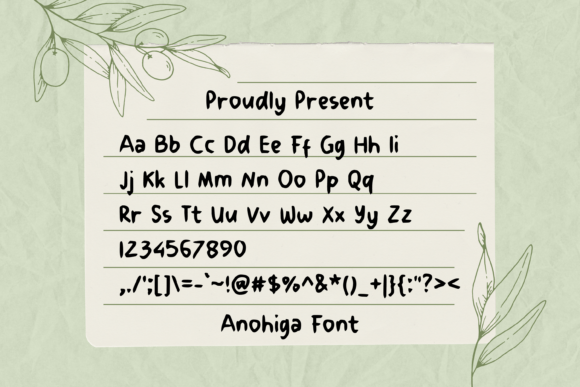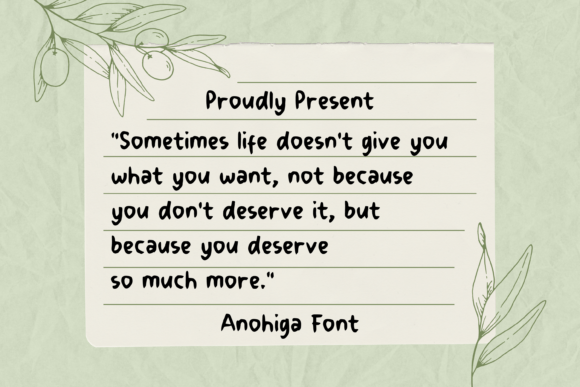
The Perfect Blend of Personality and Versatility
Have you ever been stuck in a creative rut, struggling to find the perfect font to bring your design to life? I know I have! There’s nothing quite like the frustration of staring at a blank page, wondering how to make your message stand out. But what if I told you there’s a font that’s sure to add a touch of personality to your designs, without overpowering them?
Enter the Anohiga Font, a regular handwritten font that’s anything but ordinary. Its bold, yet elegant style makes it the perfect addition to any design project. Whether you’re creating a social media post, a brochure, or a logo, the Anohiga Font is sure to bring a unique touch to your work.
As a designer, you know how valuable a versatile font can be. The Anohiga Font is no exception, offering a level of sophistication and playfulness that’s hard to find in other fonts.
Anohiga Font Key Features
- Font Family: Anohiga is a sans-serif font family designed for digital use.
- Font Sizes: Offers a range of font sizes, including 14, 18, and 24-point sizes.
- Resolution: Optimized for high-resolution displays (Retina and above) with a minimum recommended resolution of 144 DPI.
- Unique Characteristics: Anohiga features a clean and modern design with a focus on legibility and readability, making it suitable for body text and digital interfaces.
- Character Count: Offers a wide range of characters, including Latin, Cyrillic, and Greek alphabets, as well as punctuation and special characters.
Anohiga Font Review
Anohiga Font is a beautiful and unique sans-serif font that I had the pleasure of working with. Here are some of its standout features:
- ✨ Beautiful, hand-drawn aesthetic: The Anohiga Font has a lovely, organic feel that makes it perfect for creative projects and branding.
- ✨ High level of customization: With its multiple weights and styles, Anohiga Font is incredibly versatile and can be tailored to suit a wide range of design needs.
- ✨ Unique character shapes: Each letter in Anohiga Font has a distinctive shape that adds to its charm and sets it apart from more common fonts.
- ⚠️ Limited font sizes: Anohiga Font may not be the best choice for extremely large font sizes, as it can become difficult to read.
- ⚠️ Limited support for certain languages: Depending on the language, Anohiga Font may not have the necessary characters or support.
Overall, I was impressed with the Anohiga Font and its unique aesthetic. While it may have some limitations, it’s a great choice for designers looking to add some personality to their work. With its beautiful, hand-drawn look and high level of customization, Anohiga Font is definitely worth considering for your next project.
Tips for Getting the Most Out of Anohiga Font
Use the Anohiga font to create visually appealing headings and titles.
Pair the Anohiga font with other fonts to create a unique and eye-catching design.
Experiment with different font sizes, colors, and styles to achieve the desired look.
The Anohiga font is ideal for:
Designing creative and artistic projects.
Creating headings and titles for websites and social media.
Adding a touch of elegance and sophistication to documents and presentations.
Alternatives to Anohiga Font
Monserrat is a sans-serif font designed by Julieta Ulanovsky. It is a modern and sleek font, perfect for use in logos, headings, and body text in digital and print media. Montserrat is a great alternative to Anohiga Font for designers who want a clean and minimalist look.
Montserrat is similar to Anohiga Font in its clean and modern aesthetic, but it has a more geometric and industrial feel. It is also more versatile and can be used in a wide range of applications, from fashion and technology to finance and education.
Open Sans is a popular sans-serif font designed by Steve Matteson. It is a clean and modern font that is highly legible and versatile. Open Sans is a great alternative to Anohiga Font for designers who want a font that is easy to read and works well in a variety of contexts.